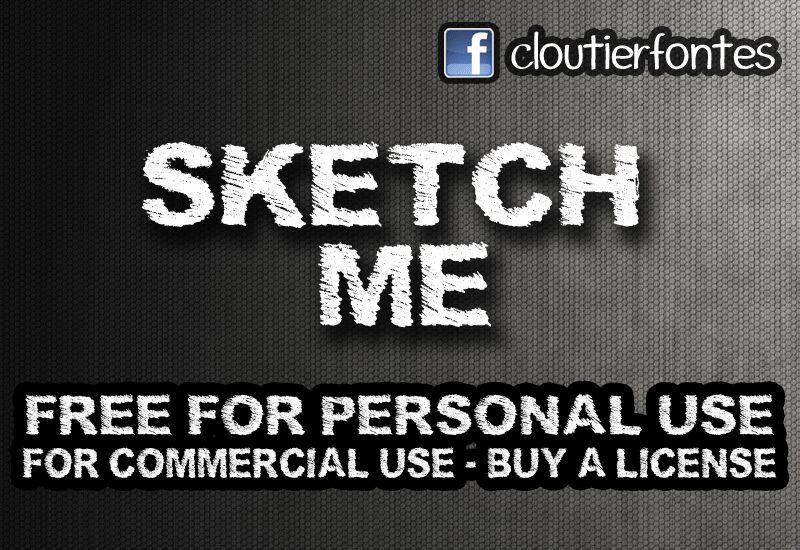
SketchMe by Steve Cloutier of PYRS Fontlab Ltd. is a free eroded display font with the look of densely worked charcoal. Its broad letters are dark and forceful, but their edges break into scratches, skips, and dry dragged marks. Uneven contours keep the lettering raw rather than mechanically distressed.
The charcoal texture can echo hand-drawn portraits or rough editorial illustration on music posters, album packaging, and magazine covers. It also suits skate merchandise and event graphics, linking those uses through the same scuffed, ink-heavy surface.